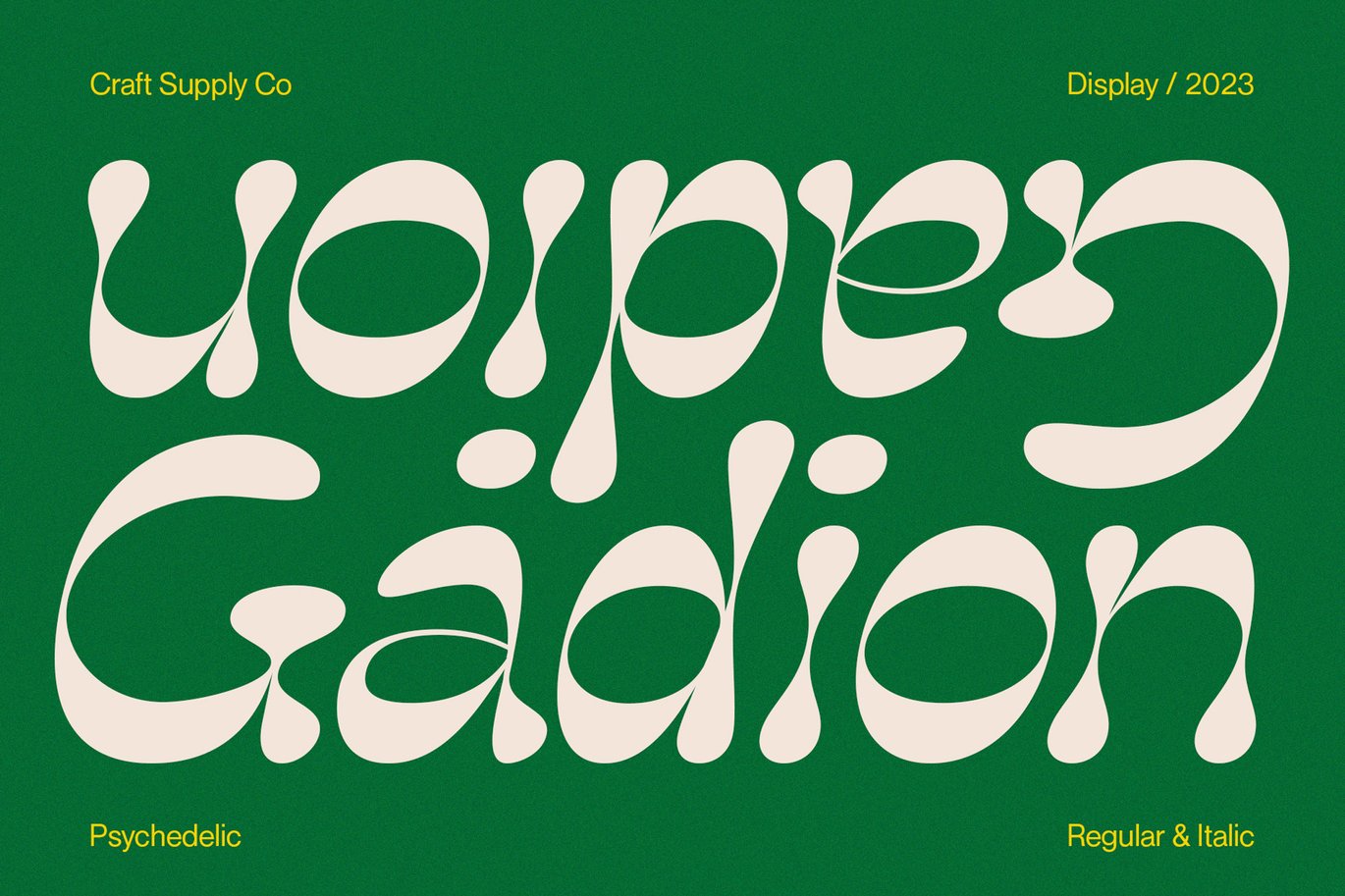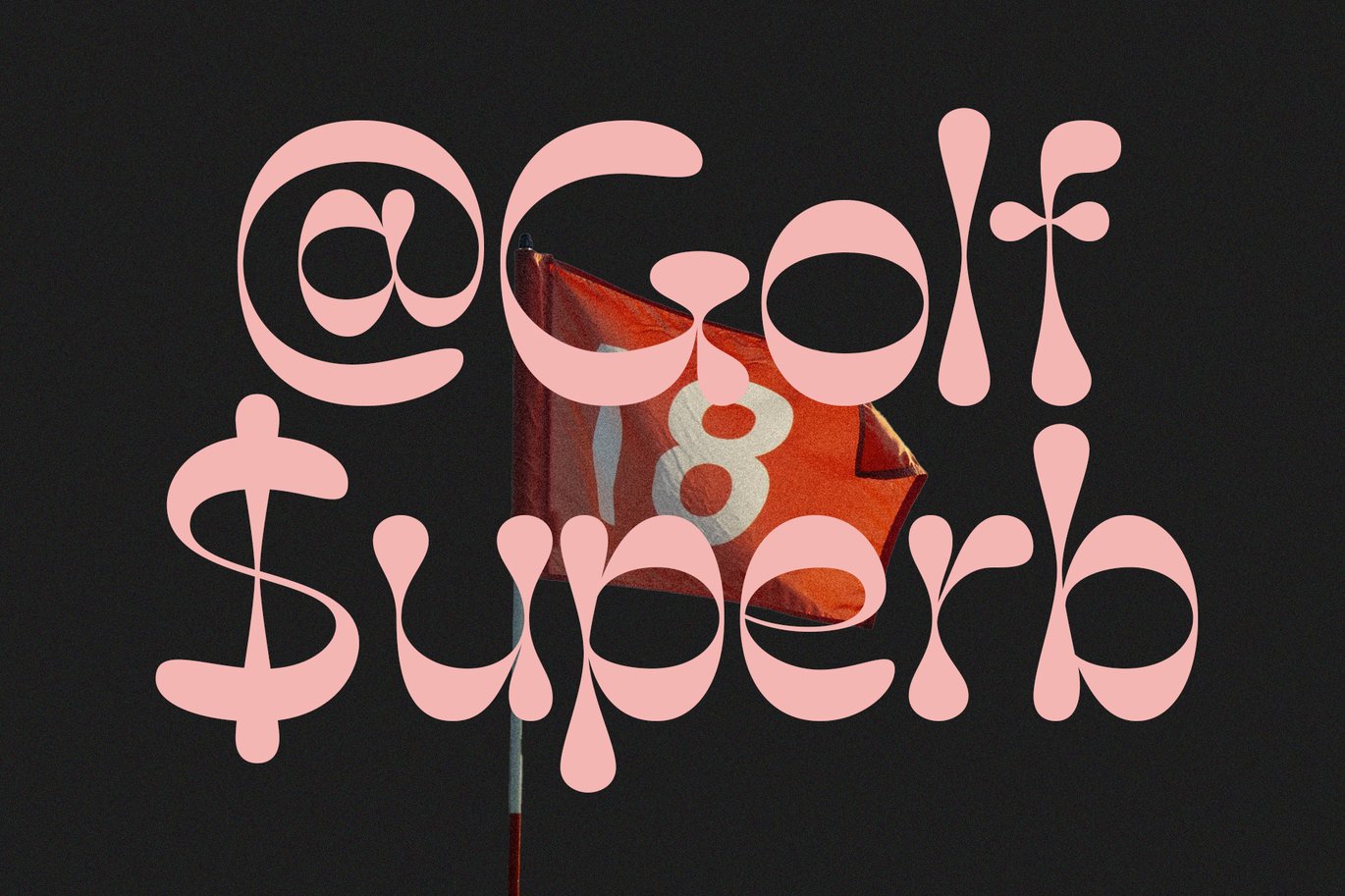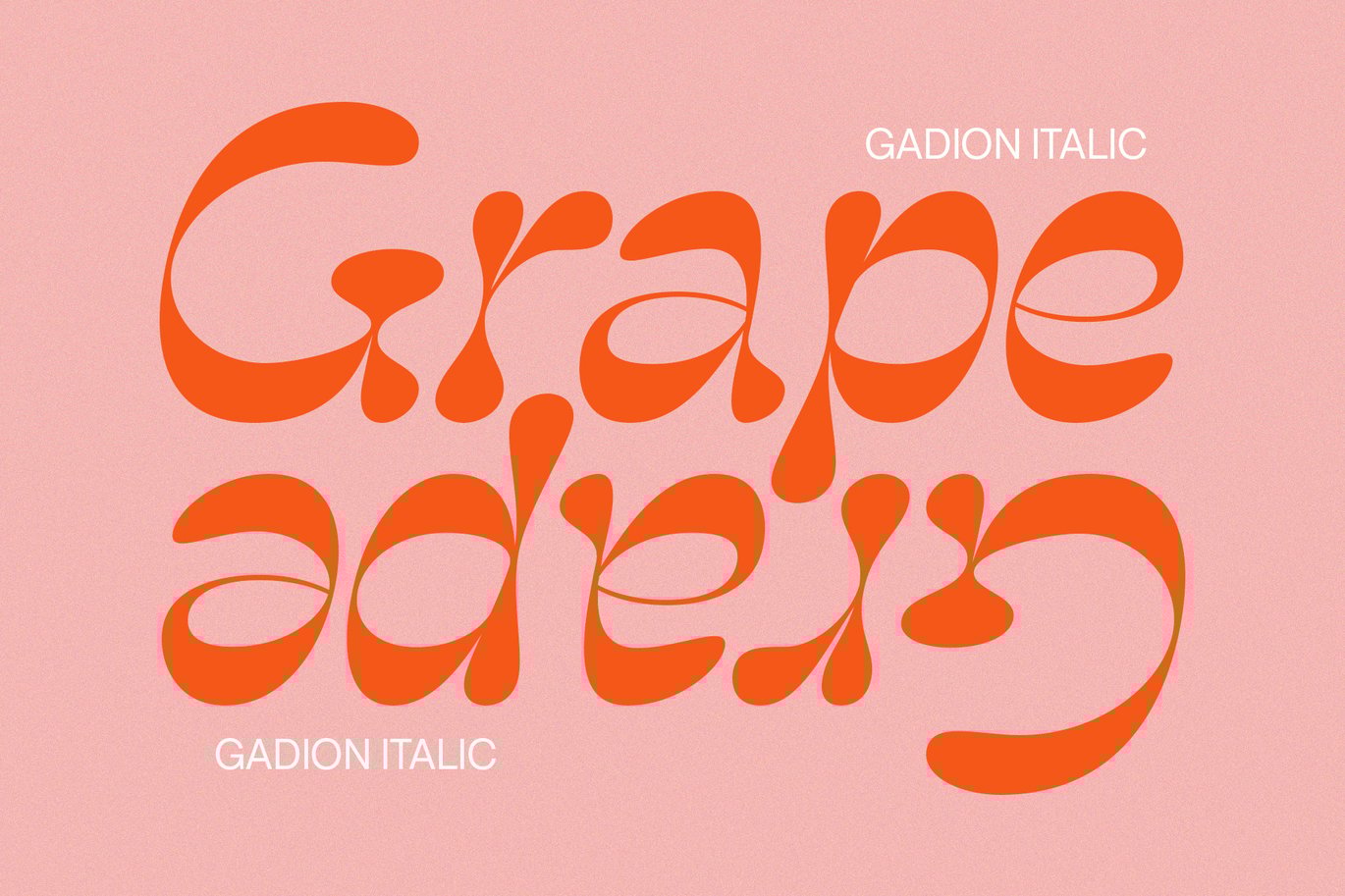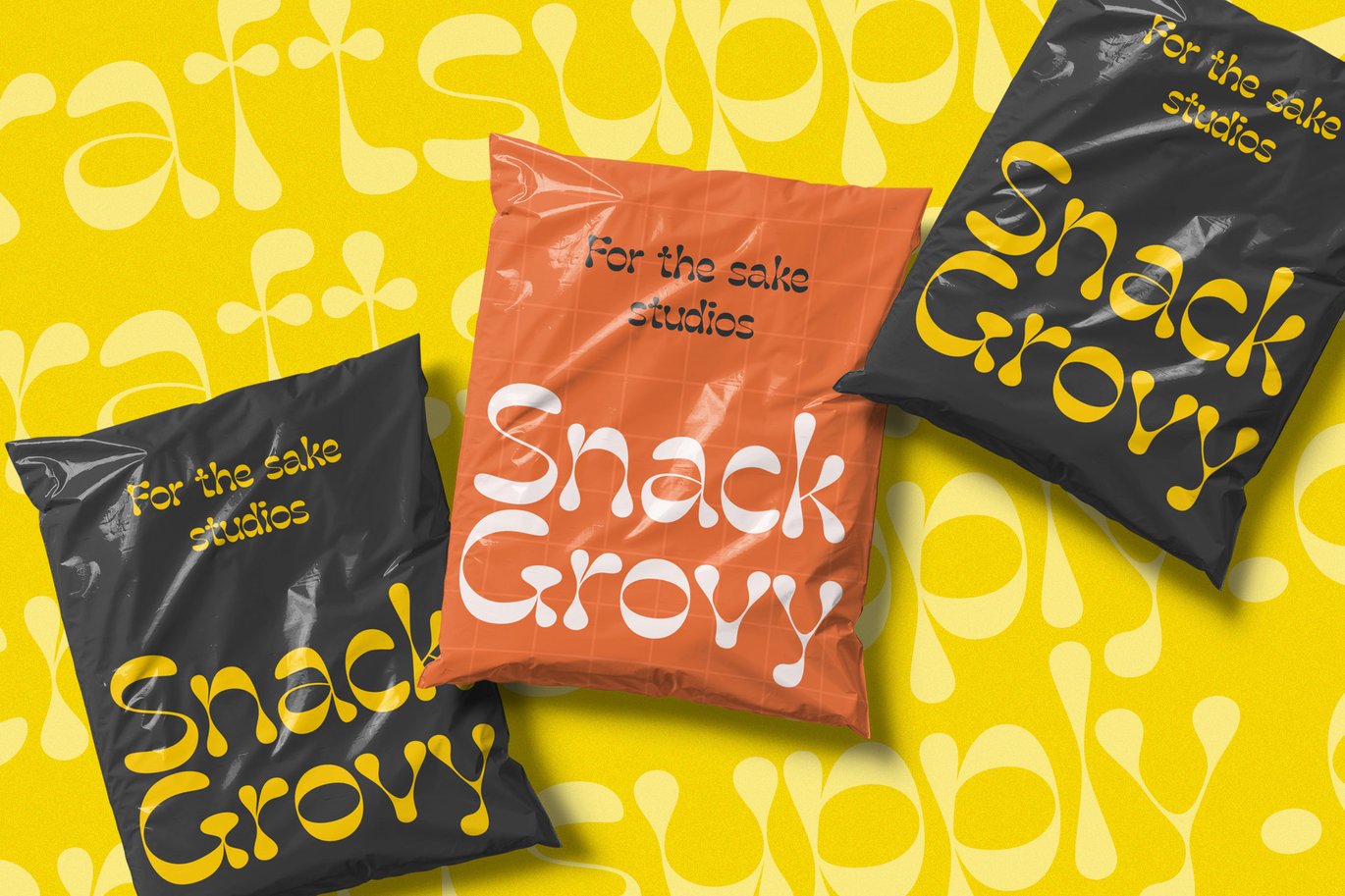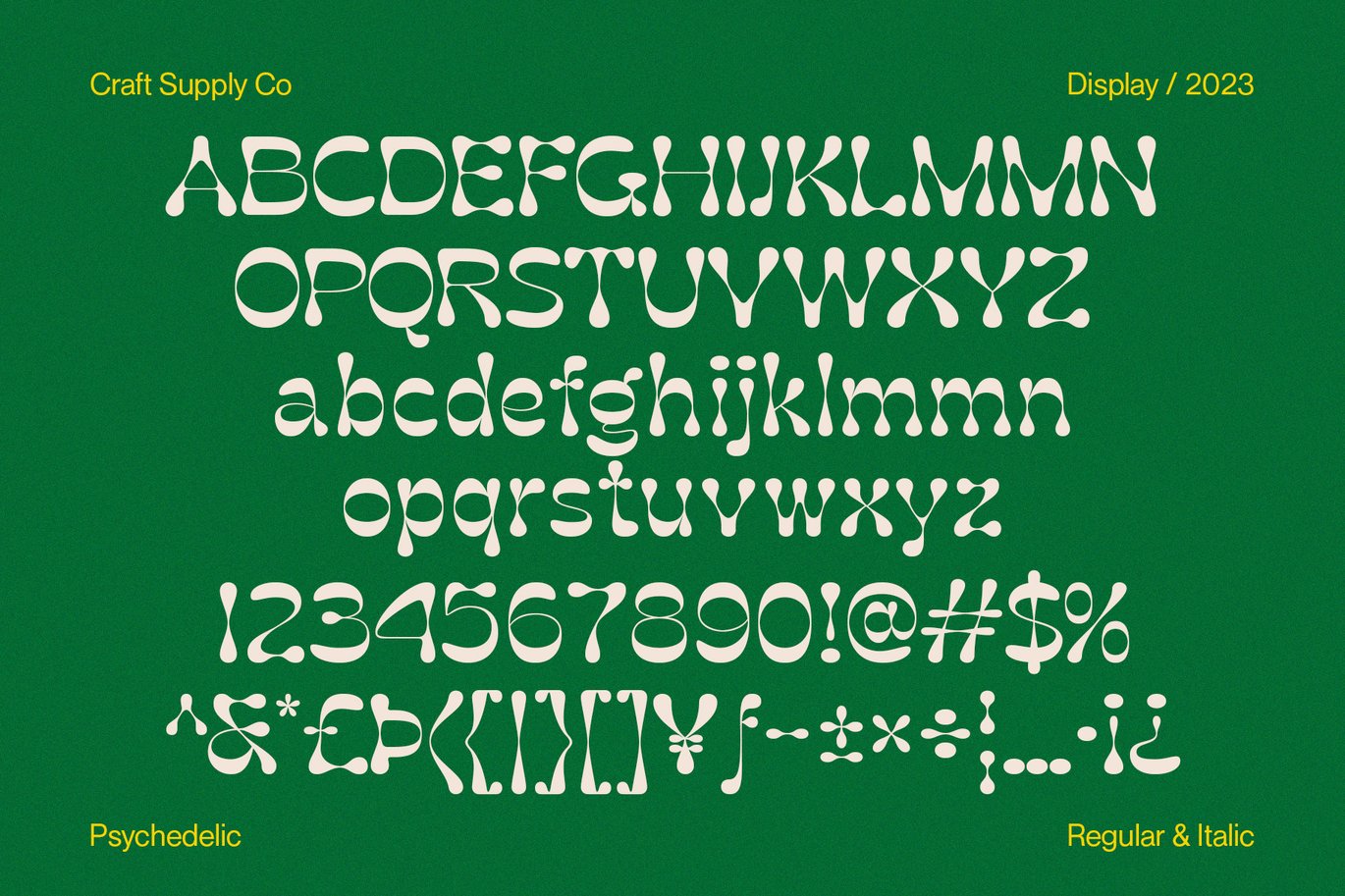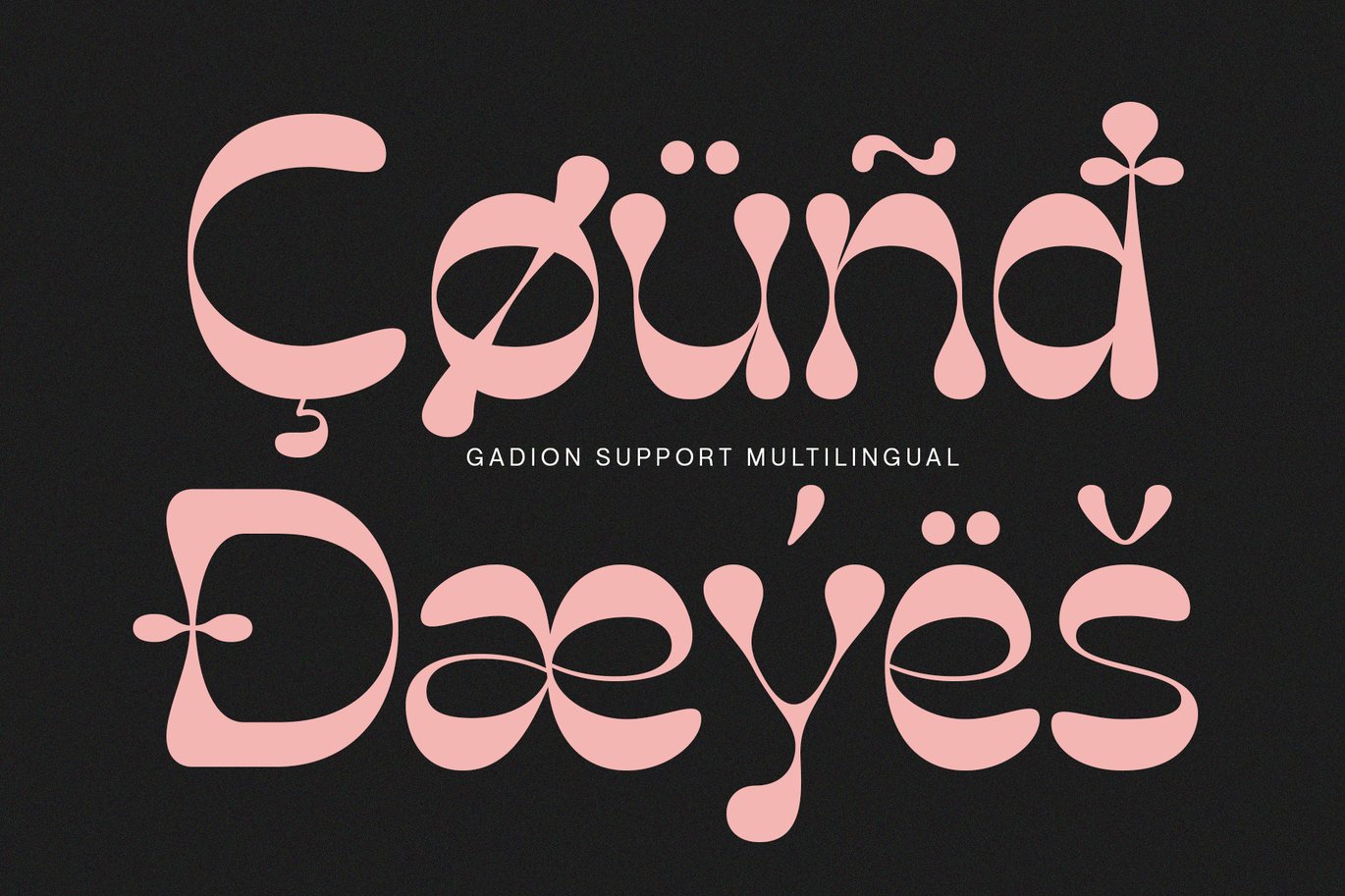
Gadion – Psychedelic Typeface
Introducing Gadion – Psychedelic Typeface
A Mesmerizing Display Font
Gadion – Psychedelic Typeface is your gateway to a captivating and unconventional display typography experience. With its trippy and psychedelic vibes, it breaks free from the mundane and ensures your designs remain endlessly fascinating.
A Splash of Psychedelic Creativity
Gadion unleashes a burst of psychedelic creativity that’s perfect for making your displays truly captivating. Its unconventional design immediately draws attention, infusing an element of excitement into your projects.
Endless Visual Delights
Furthermore, with Gadion, every character is a visual delight. Its swirling, hypnotic patterns and vibrant colors ensure that your message stands out in a way that’s both engaging and unforgettable.
In Conclusion
Gadion – Psychedelic Typeface offers a unique and visually stimulating journey for your display needs. Say goodbye to dull and ordinary, and embrace the extraordinary with this font. Let Gadion infuse your designs with psychedelic magic that captivates and mesmerizes your audience, ensuring they stay immersed in the trippy world you create.